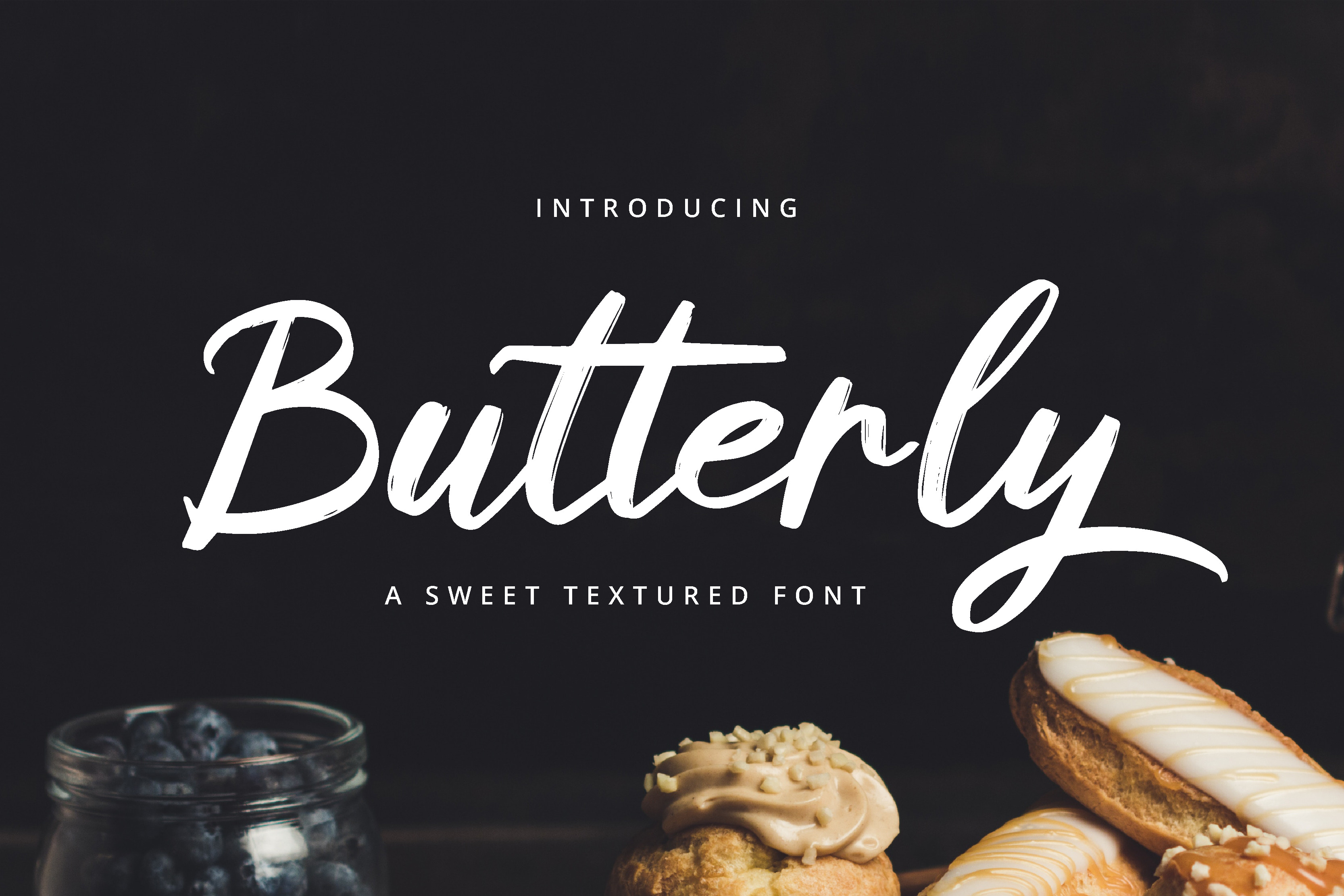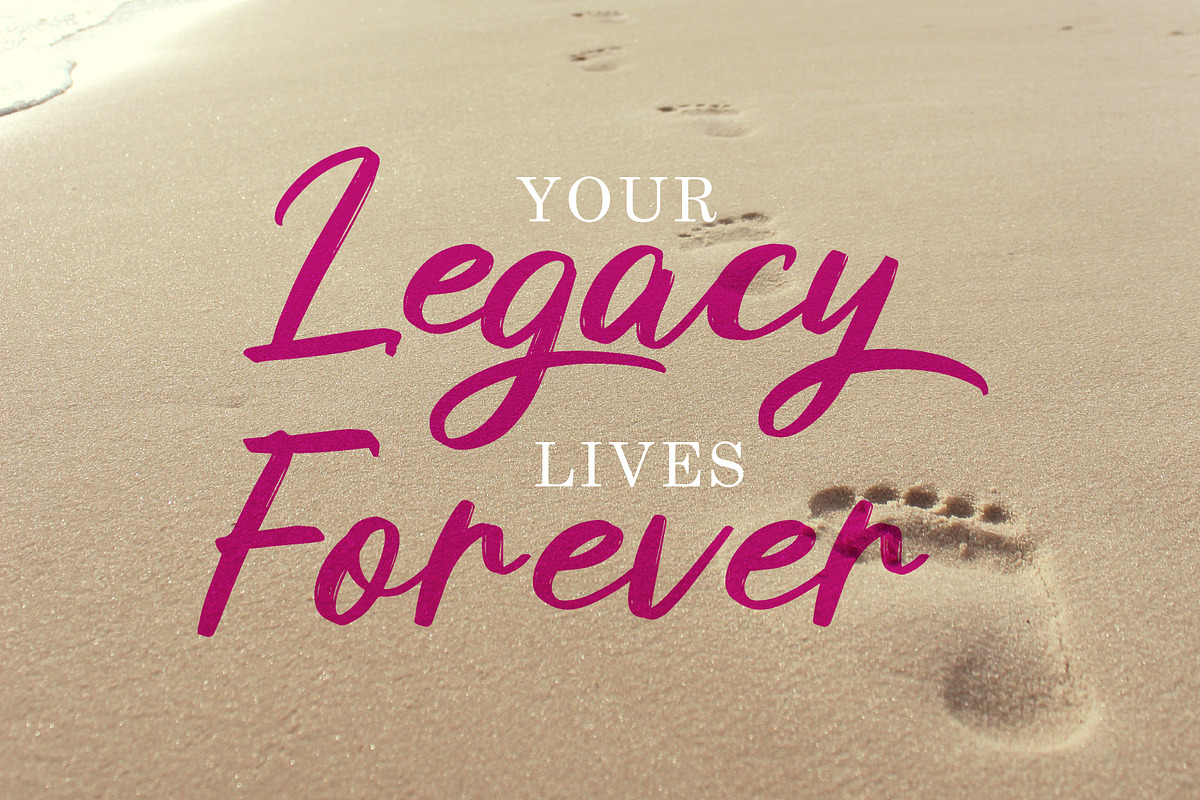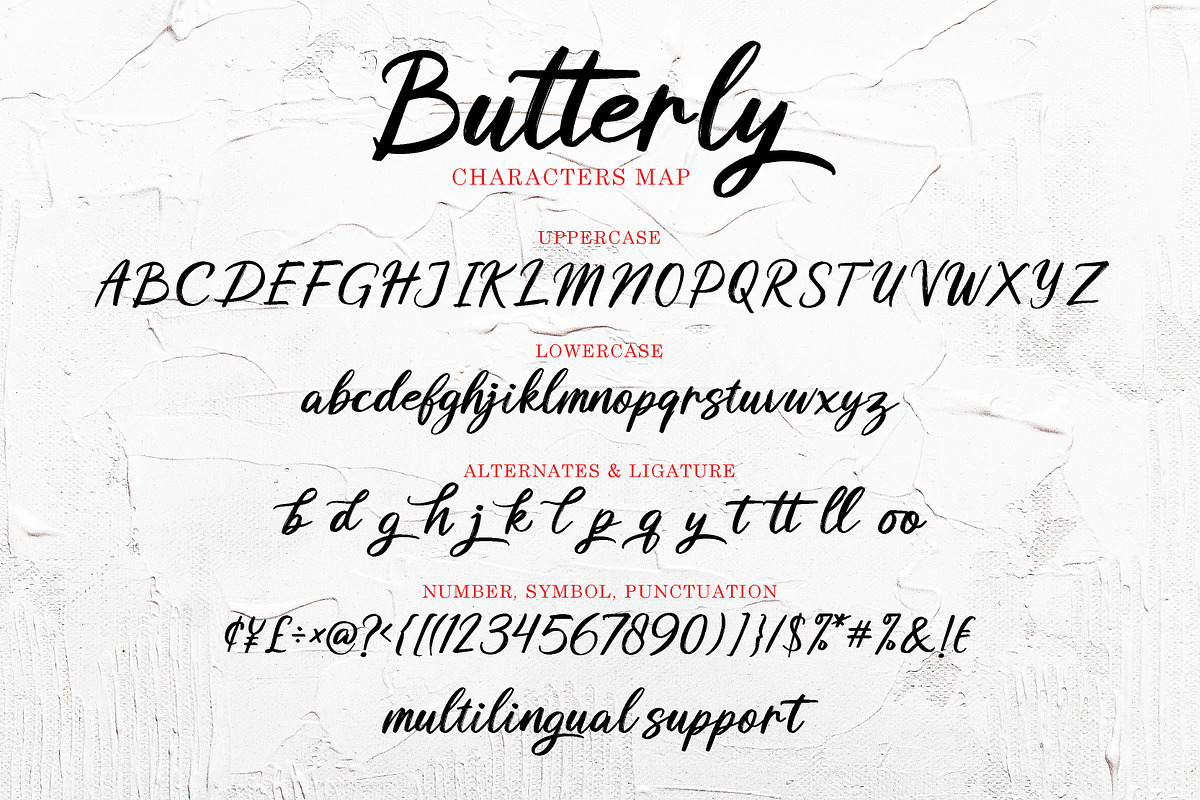
Butterly brush pen font
Butterly is a unique brush pen made font, a quick free handwritten with its unique texture and its personal charm. Butterly is perfect for branding projects, poster, homeware designs, product packaging - or simply as a stylish text overlay to any background image.